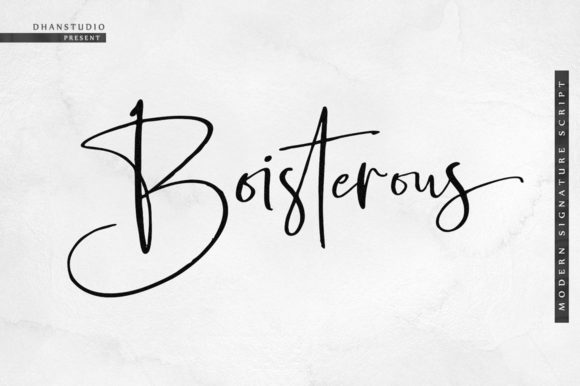
About Boisterous Script Font
Introducing “The Boisterous,” a fashionable and elegant handwriting font designed to bring a signature style with a modern touch, adding a luxurious feel to your designs. This font is more than just a typeface; it’s a design asset crafted with fashion and sophistication, making it perfect for a variety of projects that demand a chic and luxurious script.
“The Boisterous” stands out with its signature style, exuding fashion and elegance with a modern twist. Whether you’re working on branding, logos, business cards, posters, invitations, greeting cards, or any project that requires a touch of luxury, this font delivers with its distinctive and refined character.
Its fashionable and elegant handwriting style ensures that your text carries a sense of sophistication and modern charm. Logos designed with this font convey a chic and memorable brand identity. Business cards, posters, invitations, and other designs crafted with “The Boisterous” showcase a luxurious and contemporary vibe, making them visually appealing and versatile.
The versatility of “The Boisterous” makes it a great choice for a variety of creative applications, providing a handwriting font that adds a touch of luxury to any design context.
In summary, “The Boisterous” is more than just a font; it’s a design companion that brings a fashionable and elegant handwriting style with a modern touch to your projects. Embrace its chicness for branding, logos, business cards, and more, and let “The Boisterous” elevate your designs with a touch of refined fashion.